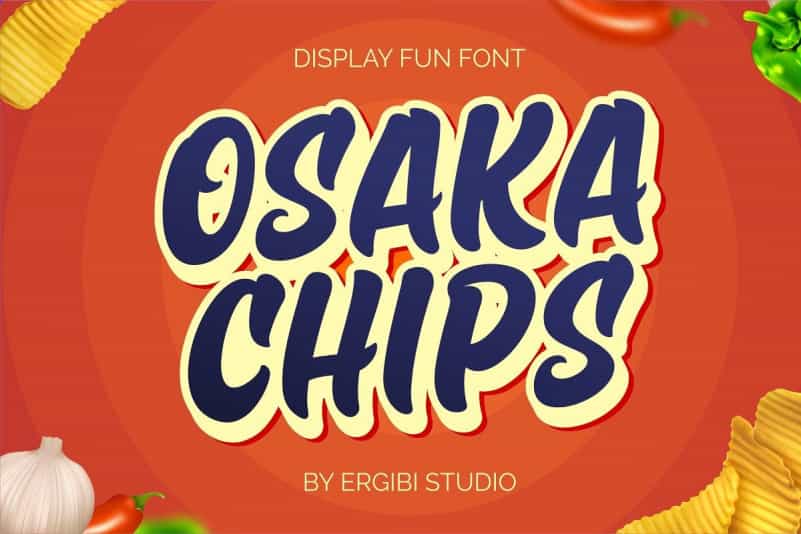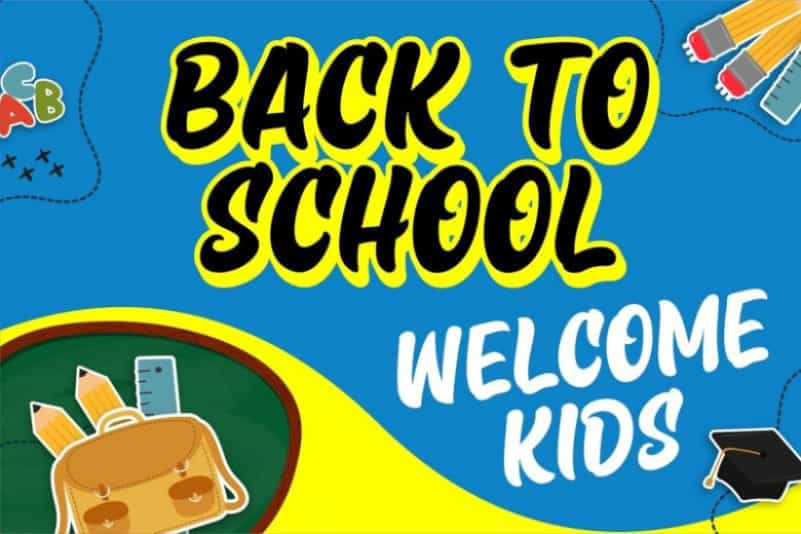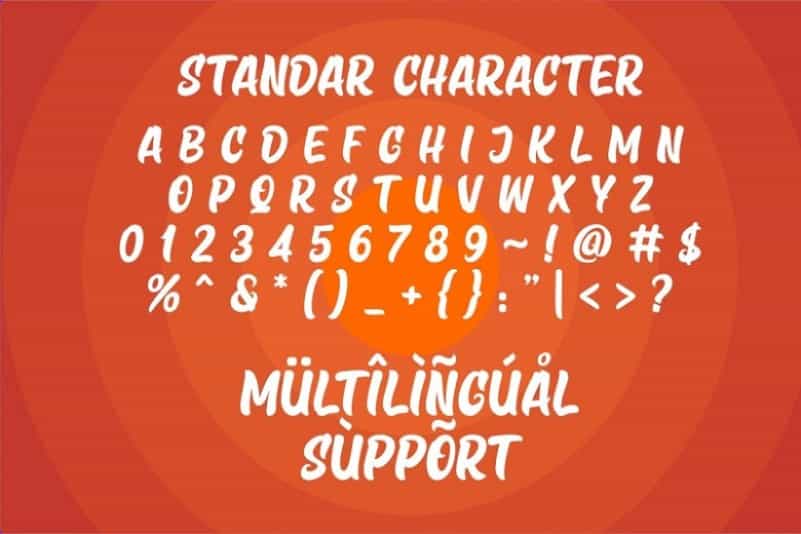
Osaka Chips, all of its unique upper case fonts that are equipped with extrude effects make this font more attractive and is very suitable for a variety of funny needs like the packaging of chips or snacks which look fun, also used on food packaging or quotes as well as school children’s requirements.